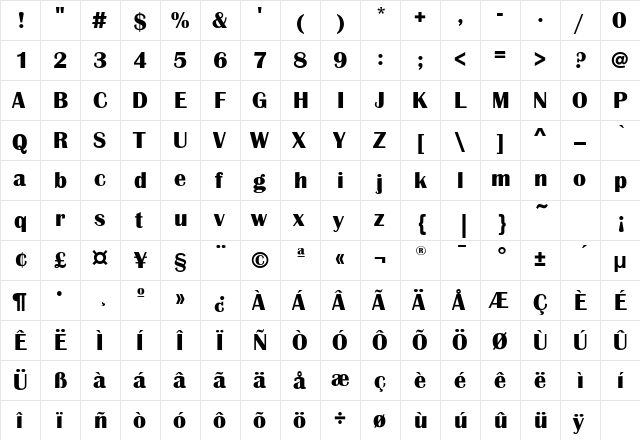
BritannicEFBold Regular
Design Context for BritannicEFBold Typeface
BritannicEFBold offers clean, dependable letterforms without strong stylistic allegiance, making it a practical choice for designers who need flexibility. The heavy weight commands attention and anchors typographic hierarchies.
Pro Tip: Use BritannicEFBold in both headline and body roles to test its range before committing to a single application.